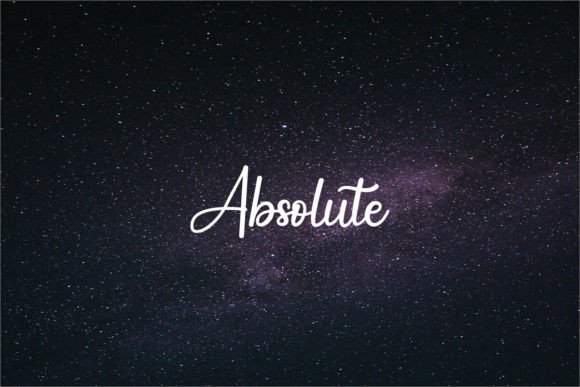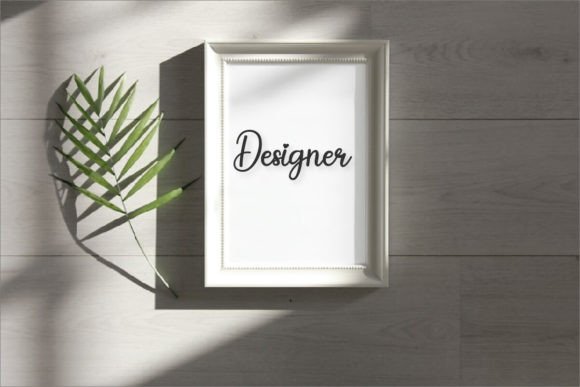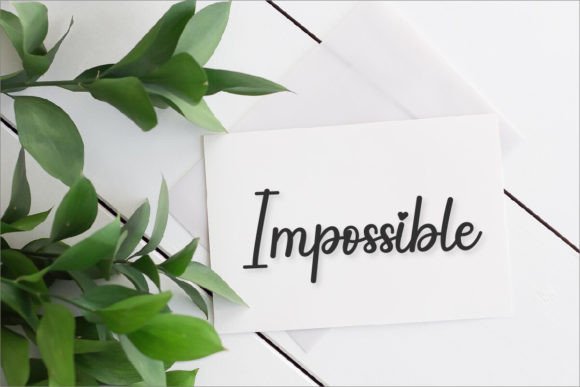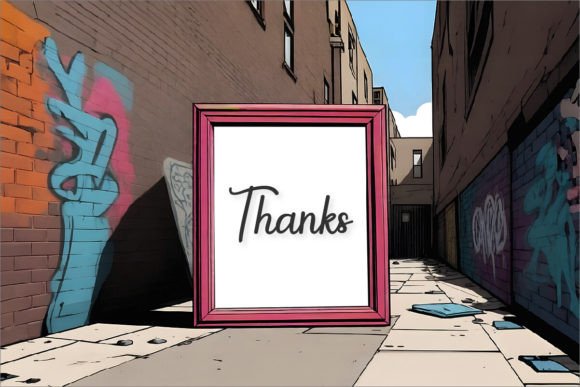
Introducing Glade Font: A Sweet and Friendly Handwritten Delight
Are you on the hunt for a font that can add a touch of warmth and personality to your designs? Look no further than Glade Font, a sweet and friendly handwritten font that’s perfect for a wide range of creative projects. With its natural and unique style, Glade Font is incredibly versatile and can be used in a multitude of designs, limited only by your imagination.
The Charm of Glade Font
Glade Font is a beautifully crafted handwritten font that’s designed to evoke a sense of friendliness and approachability. Its sweet and delicate curves make it perfect for designs that require a touch of whimsy and playfulness. Whether you’re working on a branding project, a social media graphic, or a craft project, Glade Font is sure to add a dash of personality and charm.
What Makes Glade Font So Special?
So, what sets Glade Font apart from other fonts out there? Here are just a few things that make it so special:
• Unique and Handwritten Style: Glade Font is a truly one-of-a-kind font that’s been carefully crafted to showcase a unique and handwritten style. Its natural and organic feel makes it perfect for designs that require a personal touch.
• Highly Versatile: Whether you’re working on a digital project or a craft project, Glade Font is incredibly versatile and can be used in a wide range of designs. From branding and advertising to scrapbooking and DIY crafts, the possibilities are endless.
• Easy to Read: Despite its playful and whimsical style, Glade Font is incredibly easy to read, making it perfect for designs that require a clear and concise message.
Glade Font is a perfect fit for designers and crafters who are looking for a font that can add a touch of personality and whimsy to their projects. Whether you’re working on a client project or a personal craft project, Glade Font is sure to inspire your creativity and help you to create something truly special.
Ideas for Using Glade Font
So, how can you use Glade Font in your designs? Here are just a few ideas to get you started:
• Branding and Logo Design: Use Glade Font to create a unique and memorable brand identity that’s sure to stand out.
• Social Media Graphics: Add a touch of personality to your social media graphics with Glade Font, perfect for creating engaging and shareable content.
• Scrapbooking and Journaling: Use Glade Font to add a personal touch to your scrapbooking and journaling projects, creating a beautiful and unique keepsake.
• Crafting and DIY Projects: From knitting patterns to DIY tutorials, Glade Font is perfect for adding a touch of whimsy and personality to your crafting and DIY projects.
Font Name Glade Font
Author AA studio
In conclusion, Glade Font is a sweet and friendly handwritten font that’s perfect for designers and crafters who are looking for a unique and versatile font to add a touch of personality to their projects. With its natural and organic style, Glade Font is incredibly fitting for a wide range of designs, limited only by your imagination. So why not give Glade Font a try and see the difference it can make in your designs?